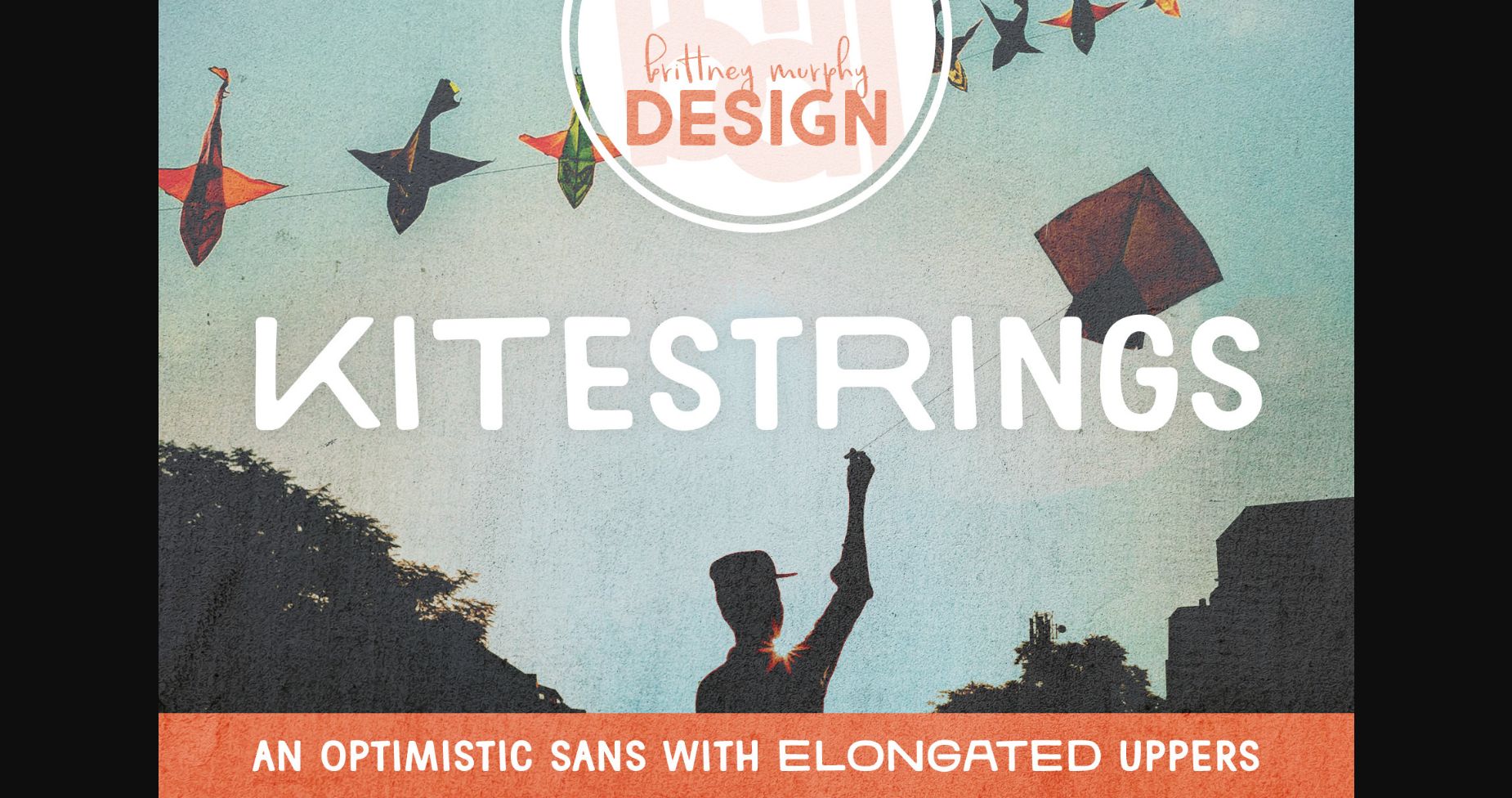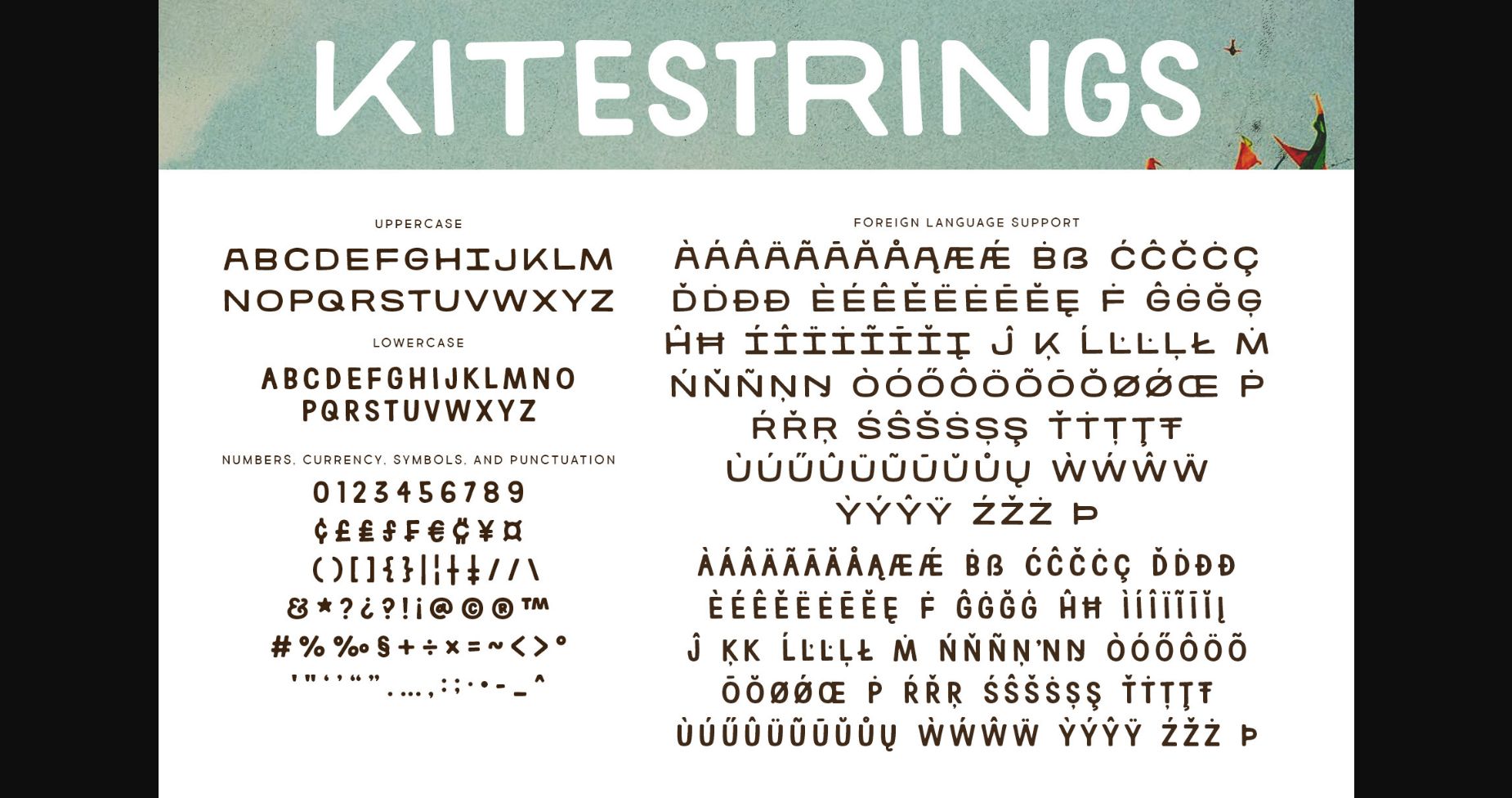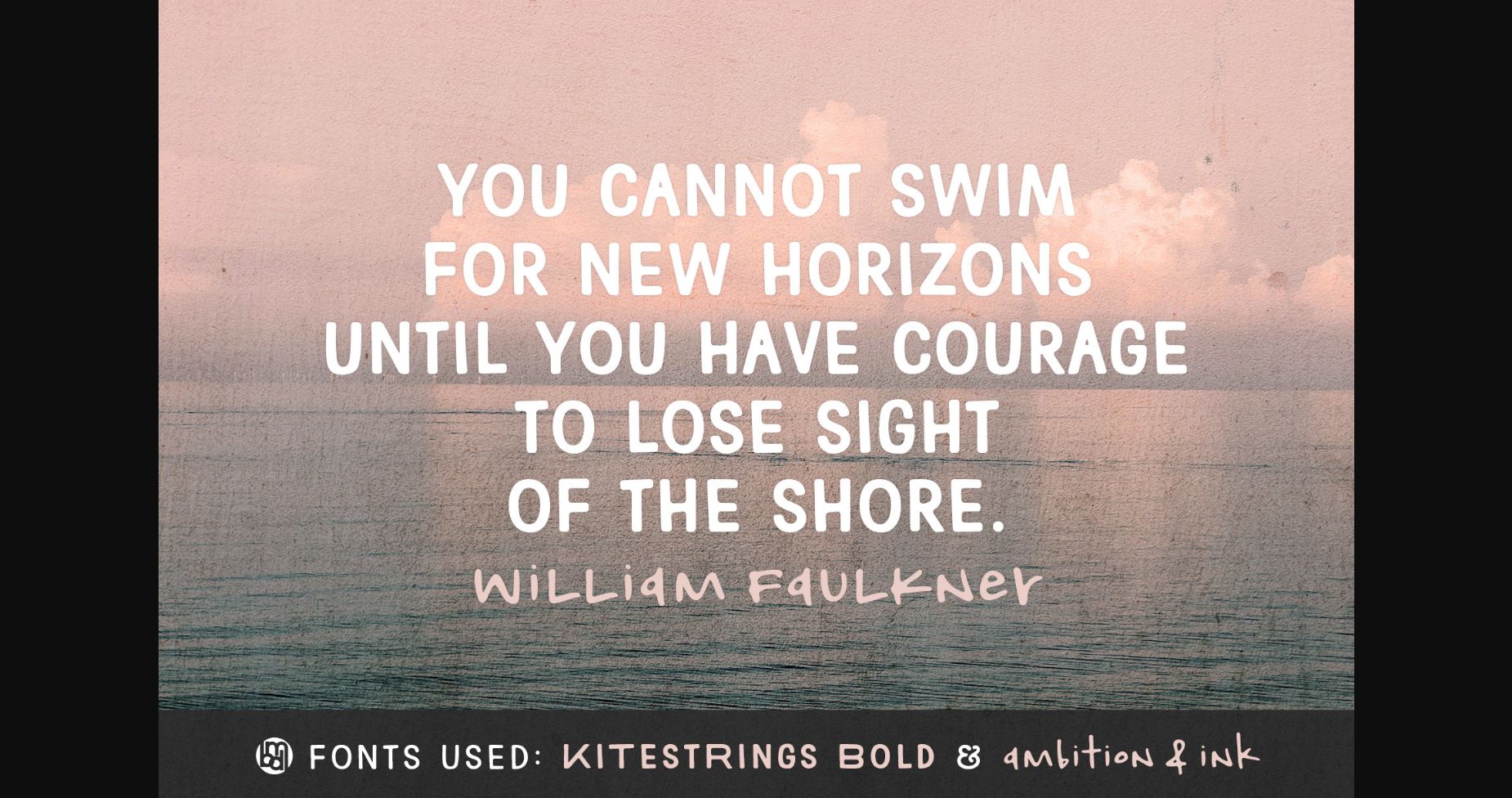
About Kitestrings Font
Kitestrings is a beautiful and exquisite sans-serif font that exudes modern elegance. Its clean lines and balanced proportions create a sense of sophistication, while its subtle curves and unique details add a touch of refinement. Perfect for branding, editorial design, and any project in need of a sleek and stylish touch.